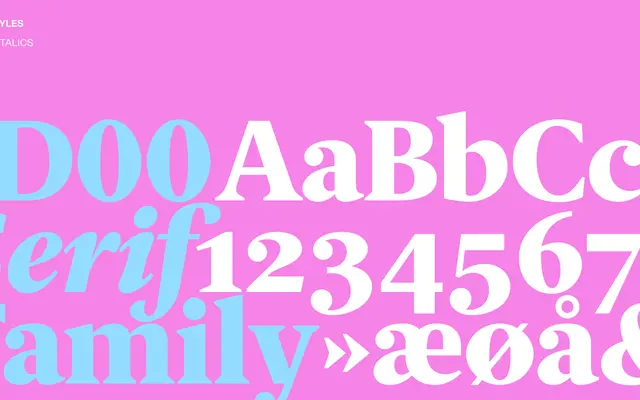
ID00 Serif
A serif typeface from Copenhagen foundry Playtype, with minimal detail available beyond the name.
ID00 Serif is part of Playtype's typeface catalogue, though the page provides very little technical or design detail to work from. The foundry is known for clean, considered type design rooted in Scandinavian graphic tradition. Without weight, style or language data available, assessment of the full family scope is limited.
Described as a serif with no further subcategory detail available from the page content; categorised as a contemporary serif based on the foundry's general design sensibility.